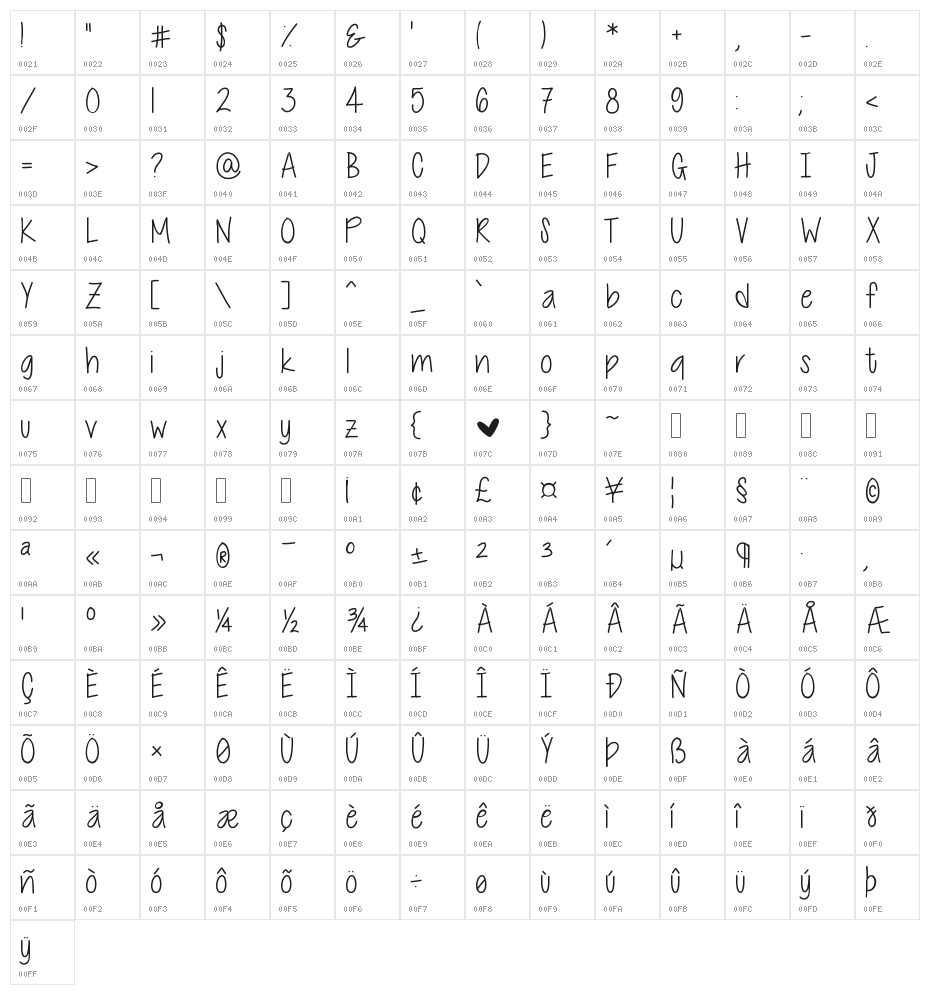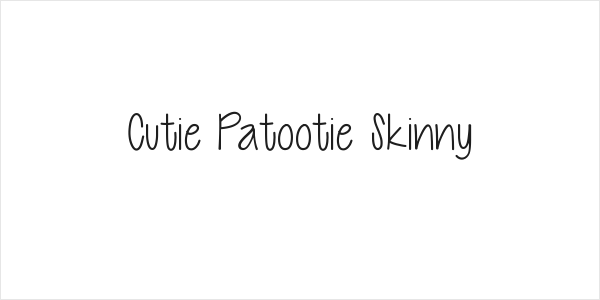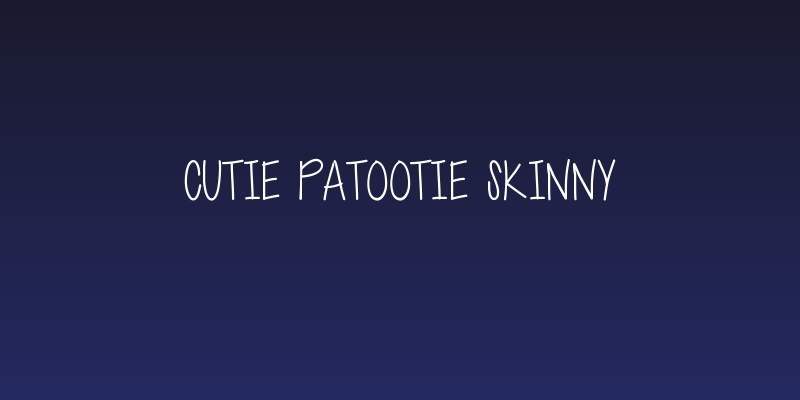
Cutie Patootie Skinny Font
Cutie Patootie Skinny Description
This playful and whimsical font features a handwritten style with tall, narrow characters. The strokes are consistent in width, giving it a clean and approachable appearance. The letters have a slight slant, adding to the casual and friendly vibe. The uppercase and lowercase letters are well-proportioned, making it easy to read while maintaining a fun aesthetic. The numbers and special characters are designed to match the overall style, ensuring a cohesive look across different uses.
| Use Case | Headlines, Logos, Social media graphics |
| Proposed Projects | Ideal for children's books, greeting cards, playful branding, and social media graphics. |